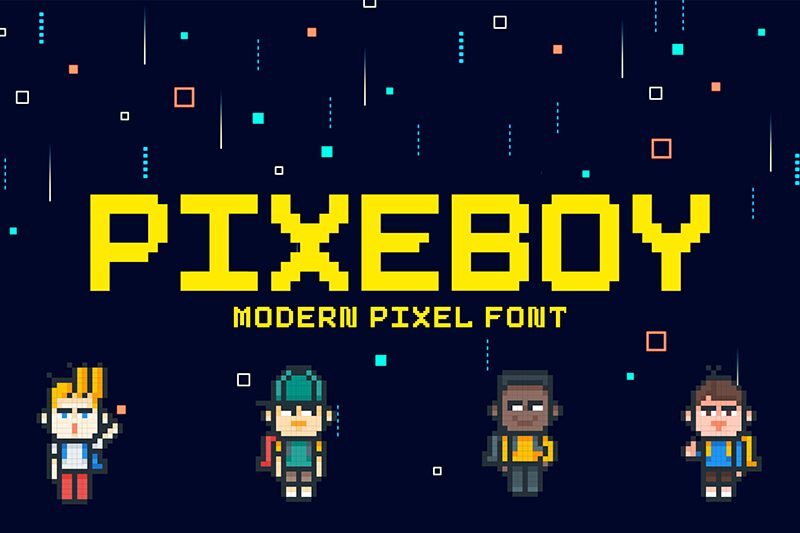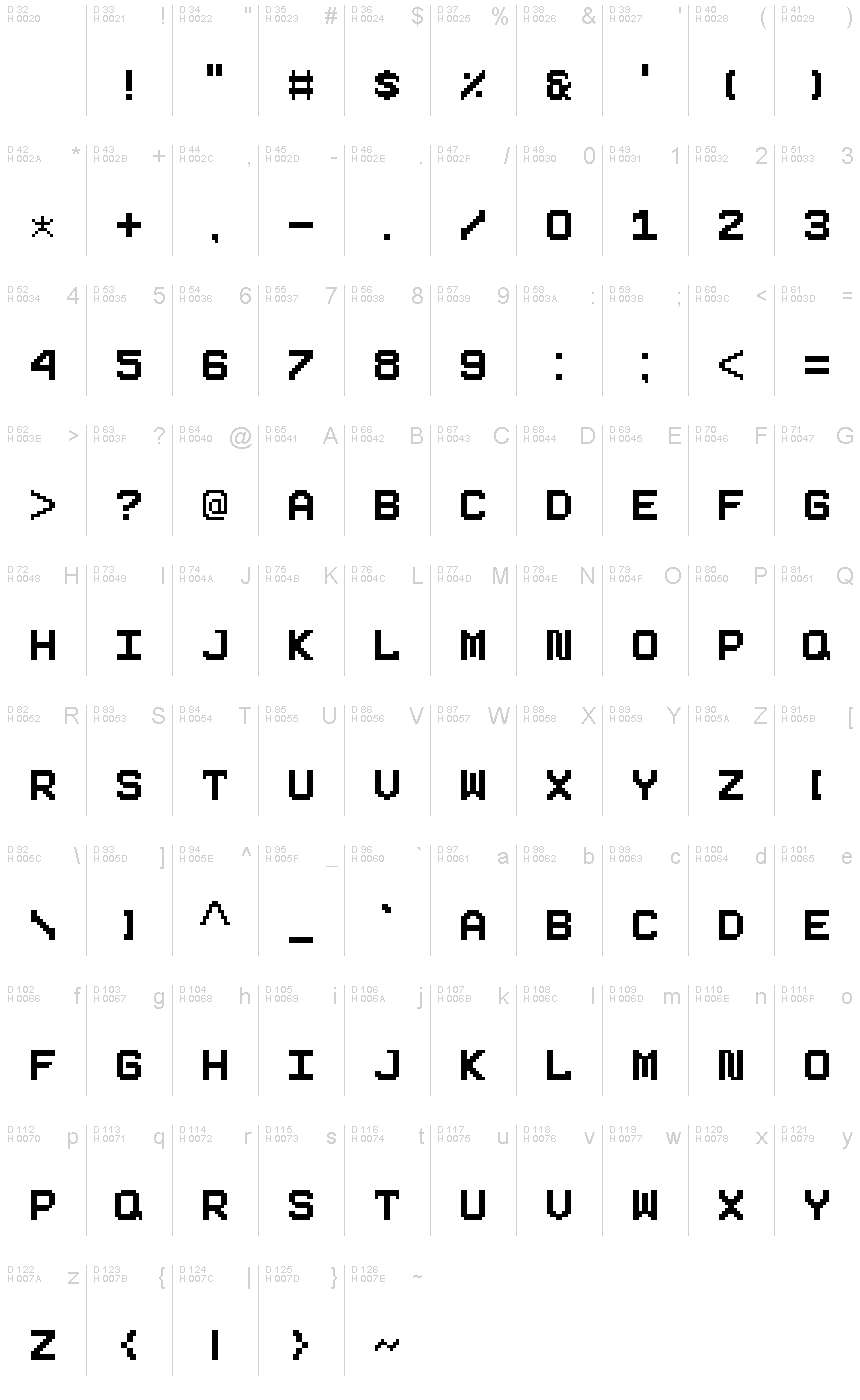
Pixeboy
Pixeboy, the brainchild of AbasCreative, is a captivating bitmap font that takes us back to the golden era of retro games. This semi-light typeface boasts pixelated perfection, adding an authentic touch to any project it graces. Its design ensures seamless integration into websites and blogs. Whether you're creating a nostalgic gaming website or designing eye-catching social media graphics, Pixeboy is your go-to font. Embrace the charm of yesteryears and let Pixeboy transport your audience to a world filled with childhood memories and endless fun.